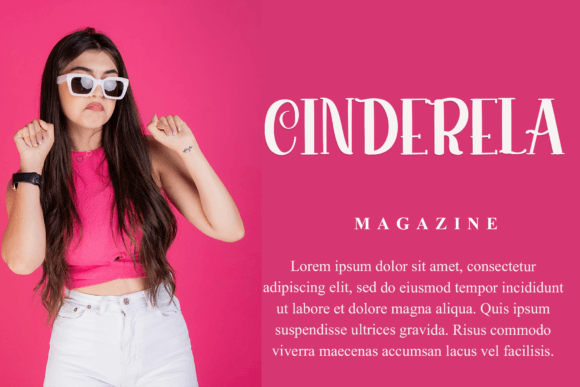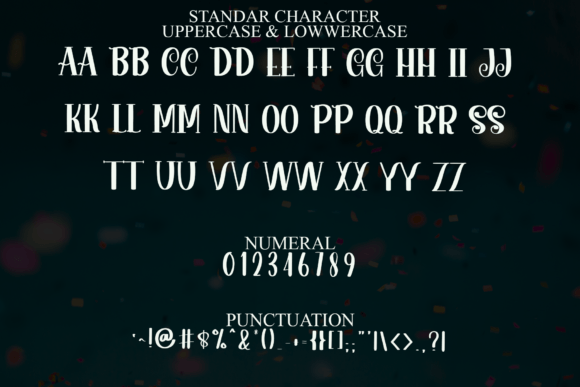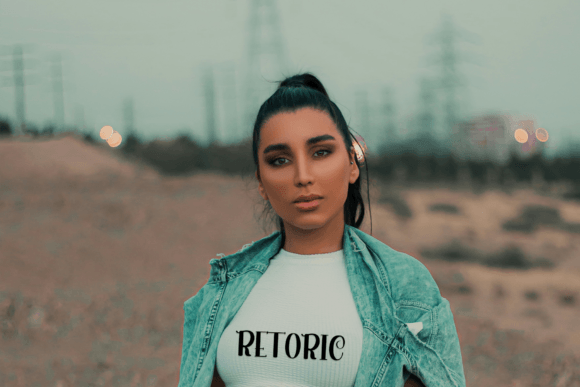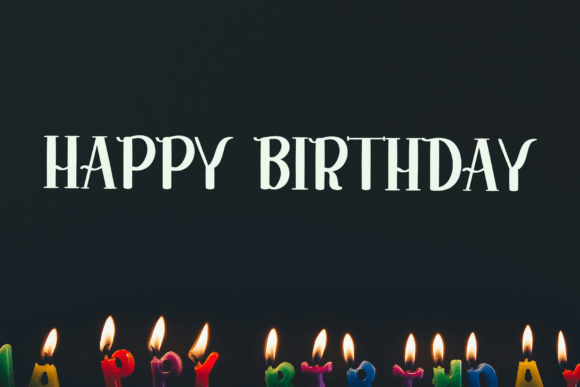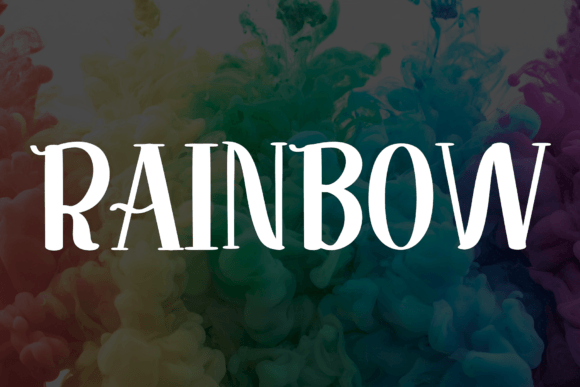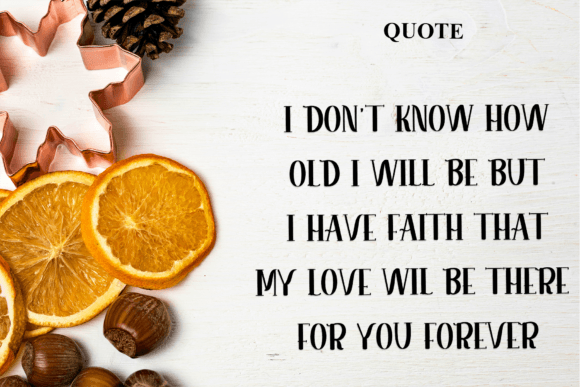
Introducing Happy Birthday Font: The Perfect Addition to Your Creative Projects
Are you a designer, crafter, or DIY enthusiast looking for the perfect font to add a touch of elegance and sophistication to your creative projects? Look no further than the Happy Birthday font! This beautiful, delicate, and timeless font is sure to make your designs shine. In this article, we’ll take a closer look at the Happy Birthday font, its features, and how you can use it to take your creative projects to the next level.
A Delicate, Elegant, and Timeless Font
The Happy Birthday font is a stunning addition to any design project. Its delicate and elegant characters are perfectly balanced, making it easy to pair with a wide range of designs. Whether you’re creating a birthday card, invitation, or any other type of project, this font is sure to add a touch of sophistication and style. The font’s classic and timeless look ensures that it will never go out of style, making it a great investment for designers and crafters.
Beautiful and Well-Balanced Characters
One of the standout features of the Happy Birthday font is its beautiful and well-balanced characters. Each letter, number, and symbol has been carefully crafted to ensure that it looks great on its own and in combination with other characters. This attention to detail makes the font incredibly versatile, allowing you to use it for a wide range of design projects. Whether you’re creating a simple text-based design or a complex, multi-element project, the Happy Birthday font is sure to perform beautifully.
The Happy Birthday font is a perfect addition to any designer’s or crafter’s toolkit. Its versatility and elegance make it suitable for a wide range of projects, from digital designs to handmade crafts. Whether you’re creating:
- Birthday cards and invitations
- Party decorations and banners
- Blog and website content
- Handmade crafts and DIY projects
the Happy Birthday font is sure to become a go-to choice. Its ease of use and flexibility make it perfect for designers and crafters of all skill levels.
Tips for Using the Happy Birthday Font
Here are a few tips for getting the most out of the Happy Birthday font:
- Pair it with bold fonts for a striking contrast
- Use it for headings and titles to add a touch of elegance
- Take advantage of the font’s glyphs and ligatures to add unique touches
By following these tips, you can unlock the full potential of the Happy Birthday font and create stunning designs that will leave a lasting impression.